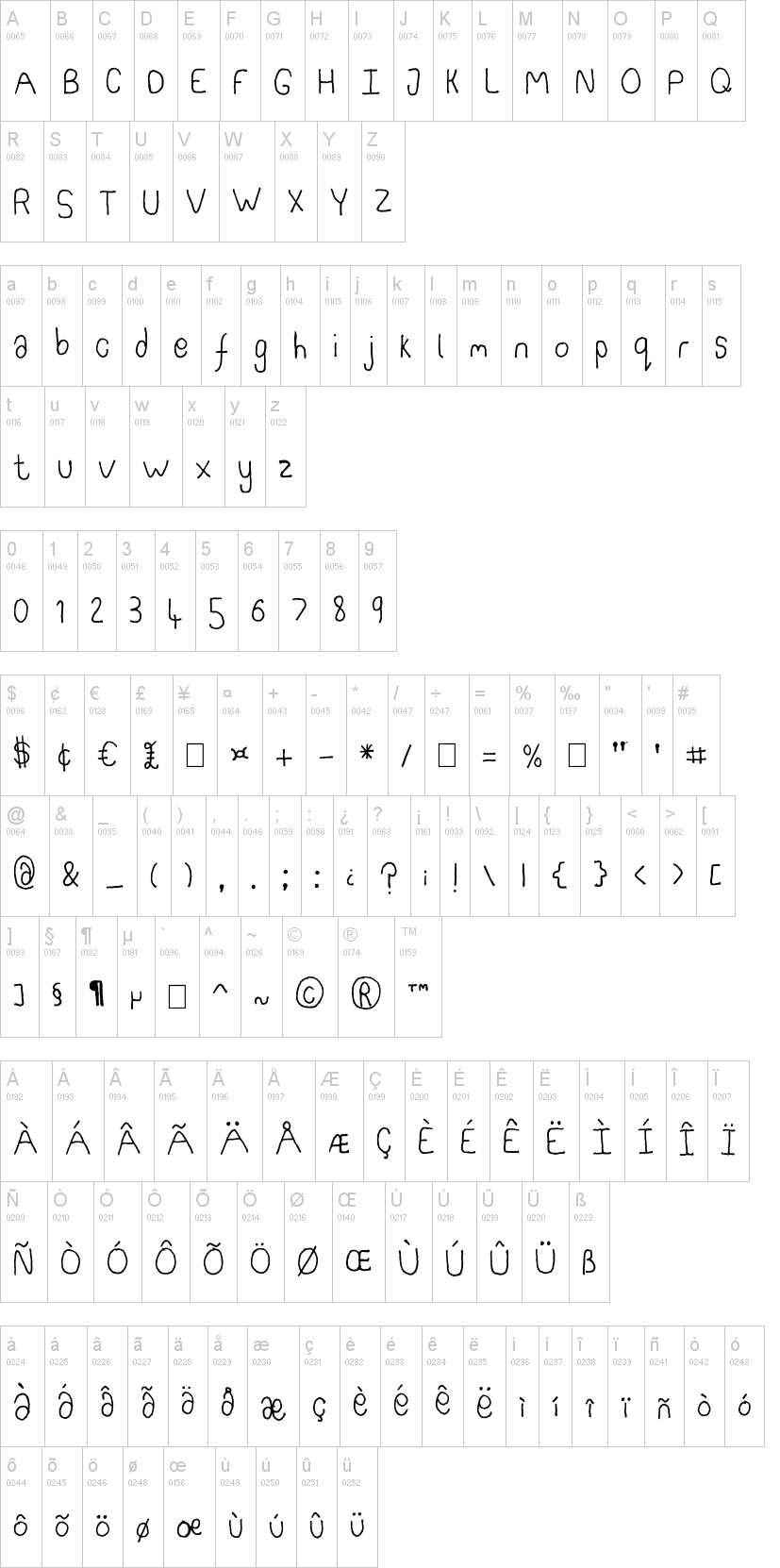
Шрифт Somebercum Sans Serif
A purely handwritten font with distinctly rounded edges and a wonky playful feel.
Sans serif, and a complete set of characters including foreign ones.